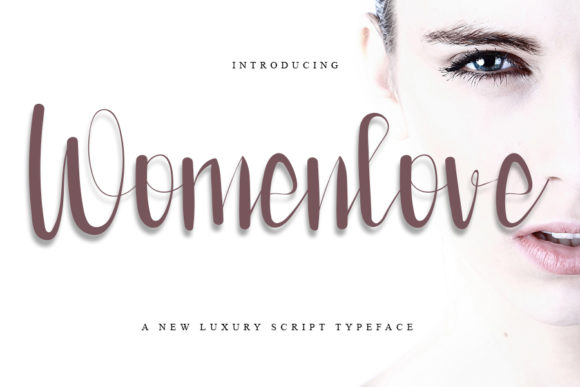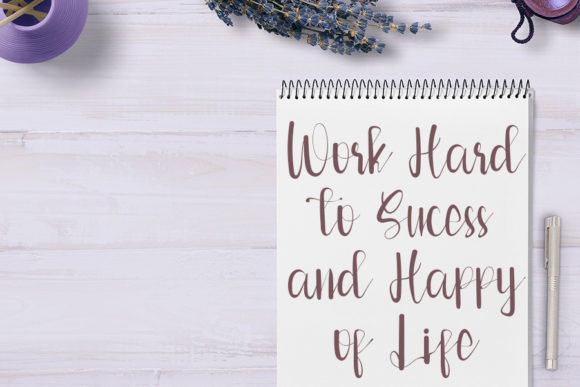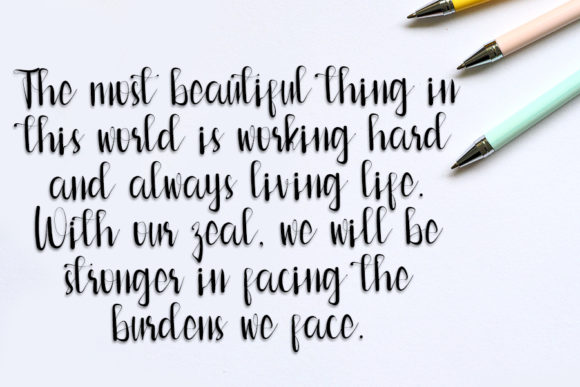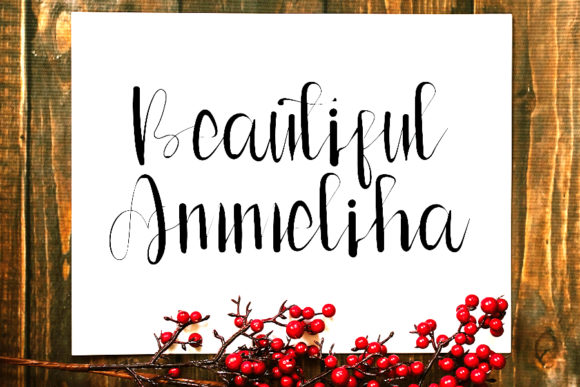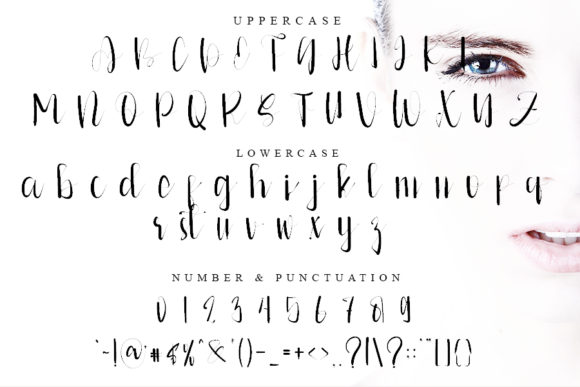
About Womenlove Font
Womenlove is a stylish and delicate script font. It has a clean, thin and smooth vibe and it will be a hit for any design that you want to add it to.